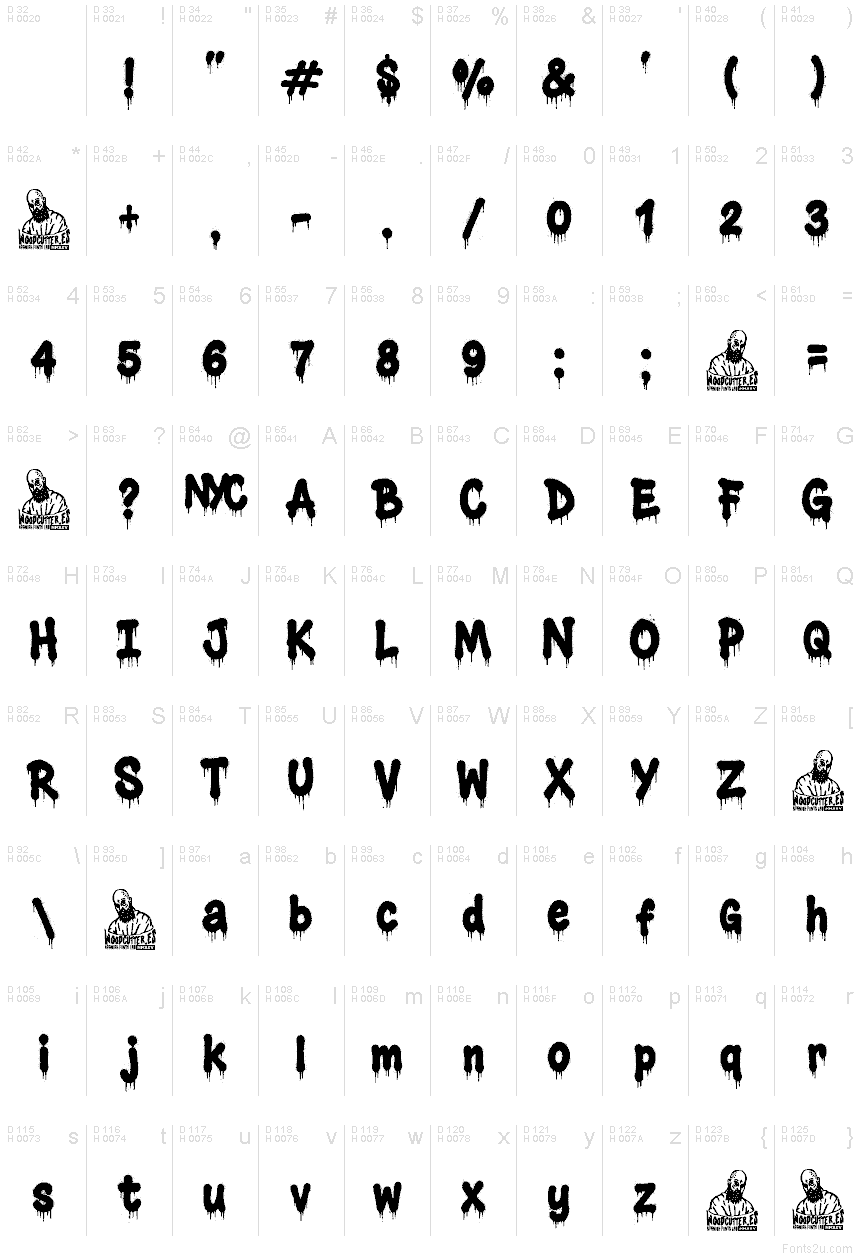
Street Flow NYC
Street Flow NYC font is a bold graffiti-inspired typeface created by Woodcutter. It echoes an urban and edgy atmosphere with its expressive, grungy letters enhanced by distressed textures. The font embodies the dynamic energy of street art, making it perfect for projects seeking a vibrant, energetic vibe.
This free bold graffiti font suits designs related to music albums, video game covers, movie posters, online banners, and social media graphics. Useful in branding projects geared towards a youthful audience such as skate parks or streetwear fashion where visual creativity captures attention instantly.